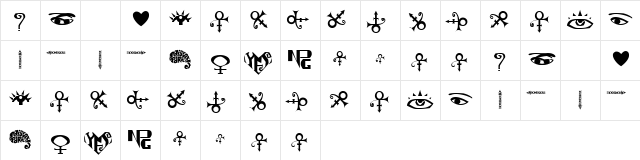
Complete The Artist Symbols Normal glyph index. Displaying only characters natively supported by The Artist Symbols Normal font.
The Artist Symbols is a composed and adaptable typeface that performs quietly and consistently across a wide range of design contexts.